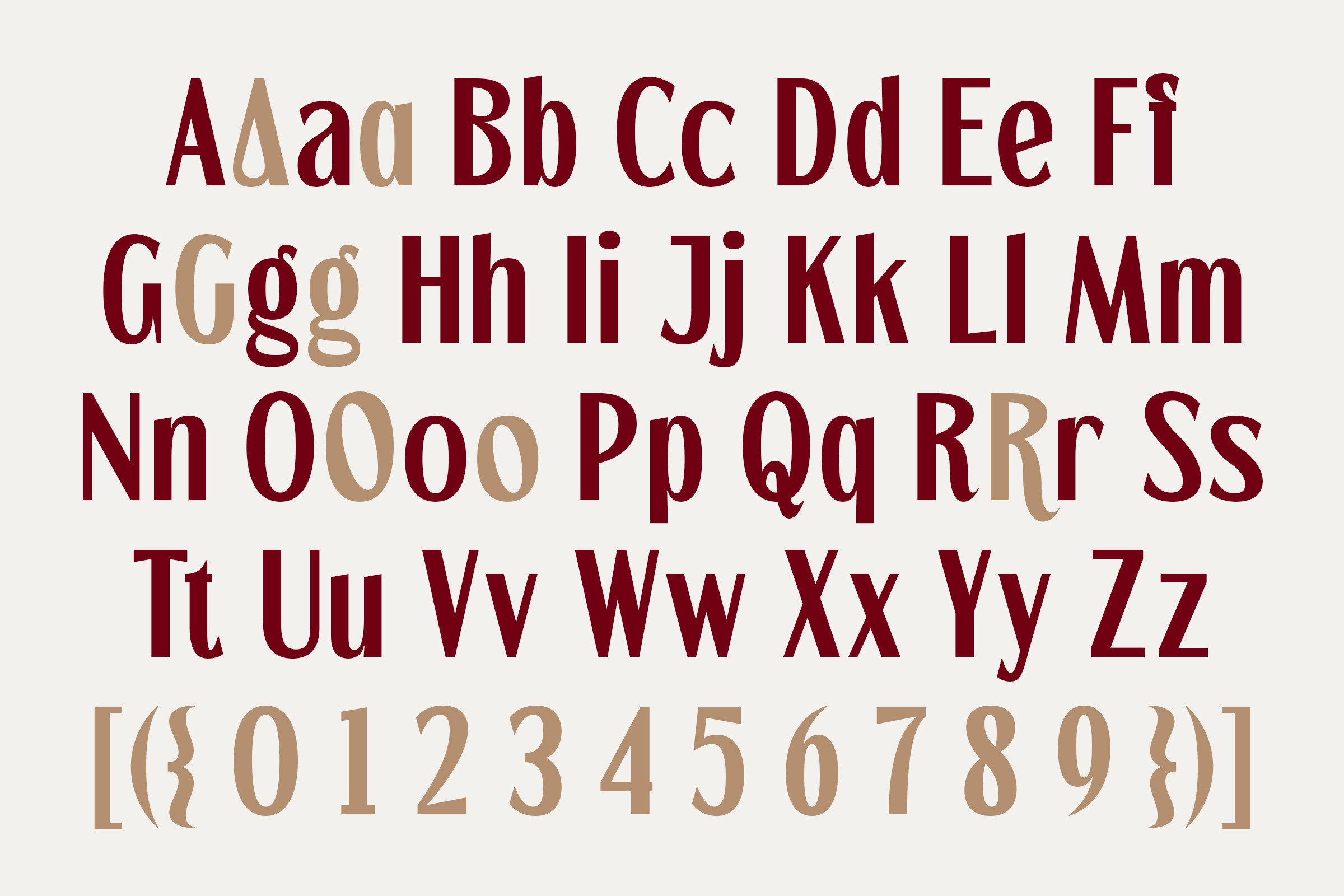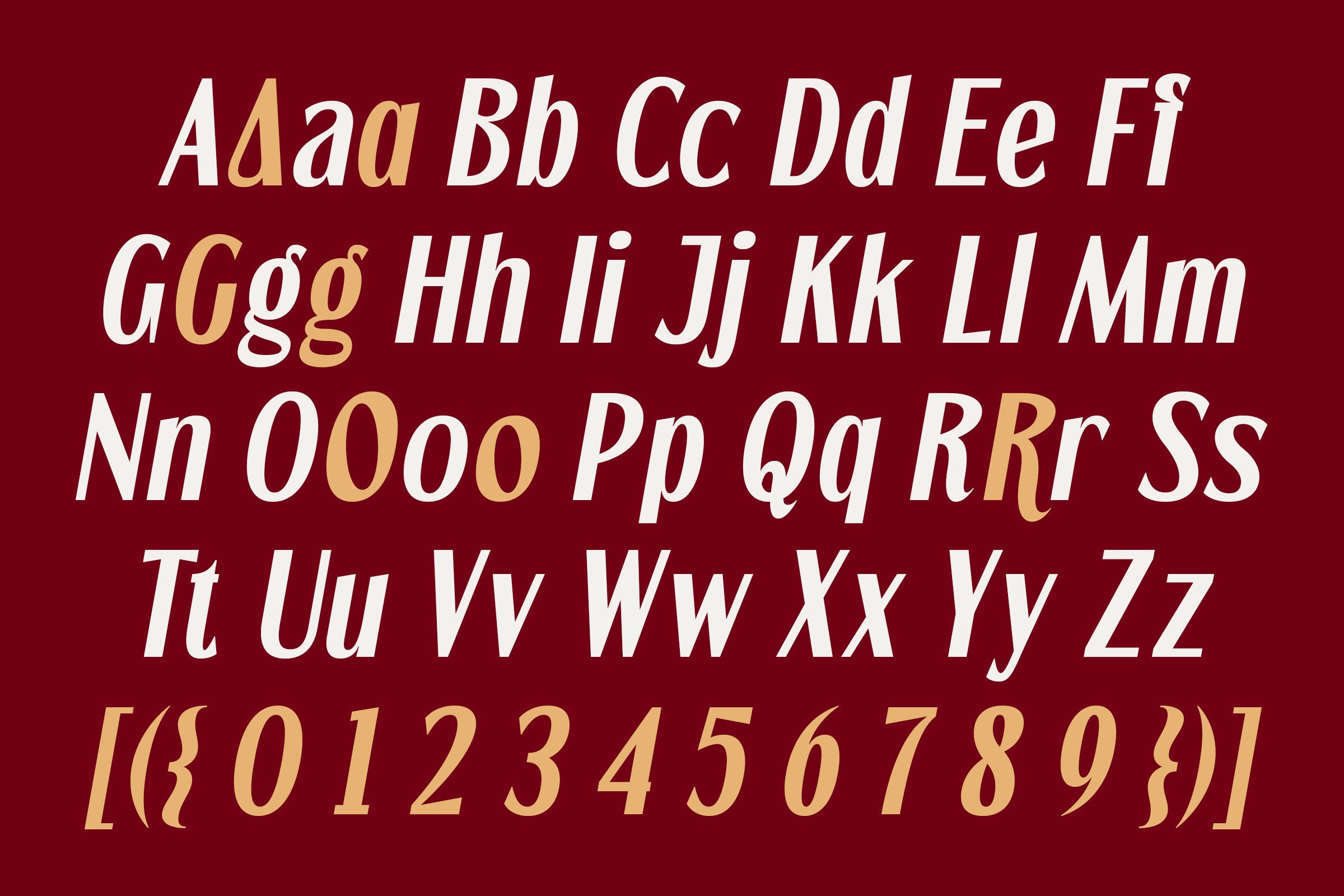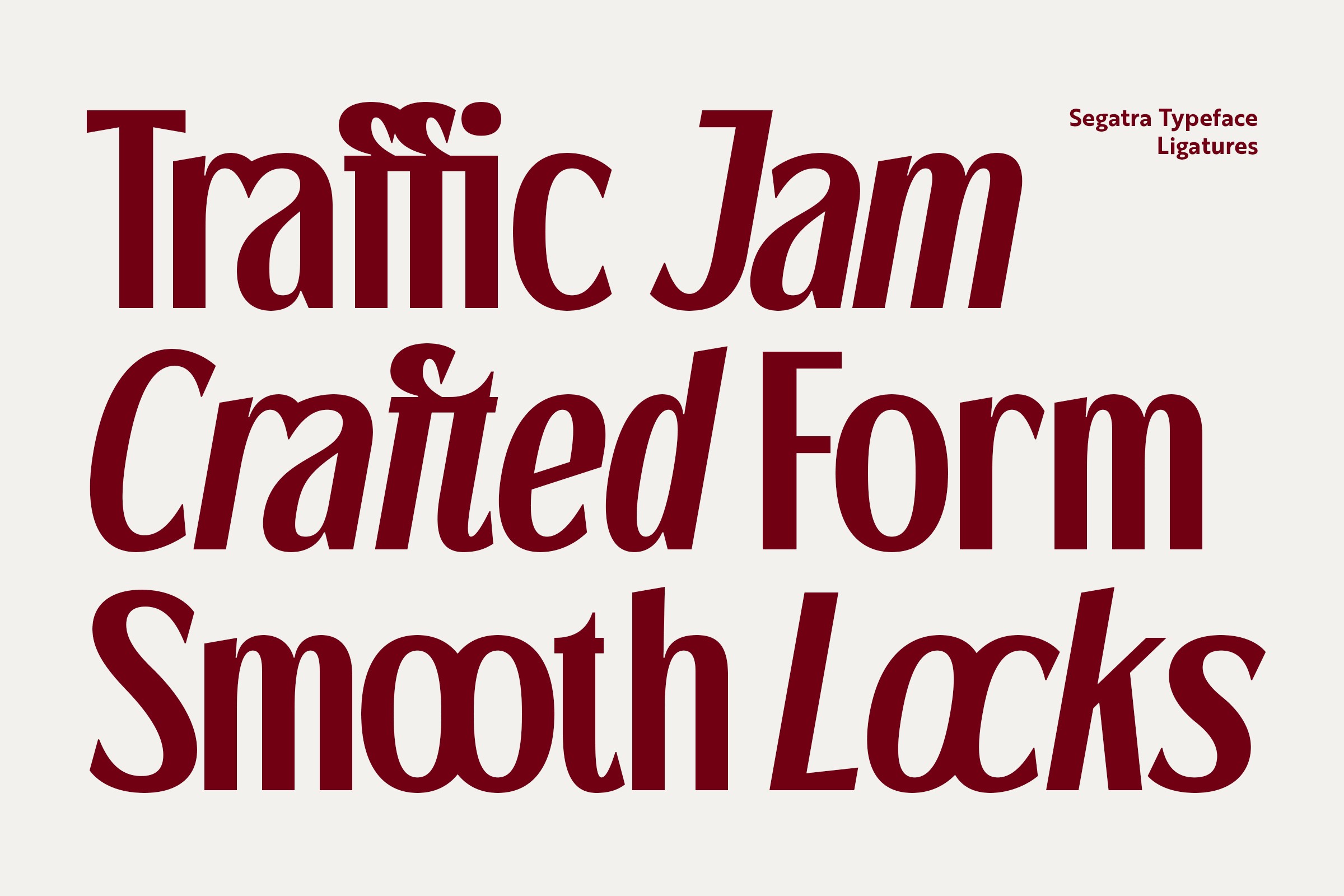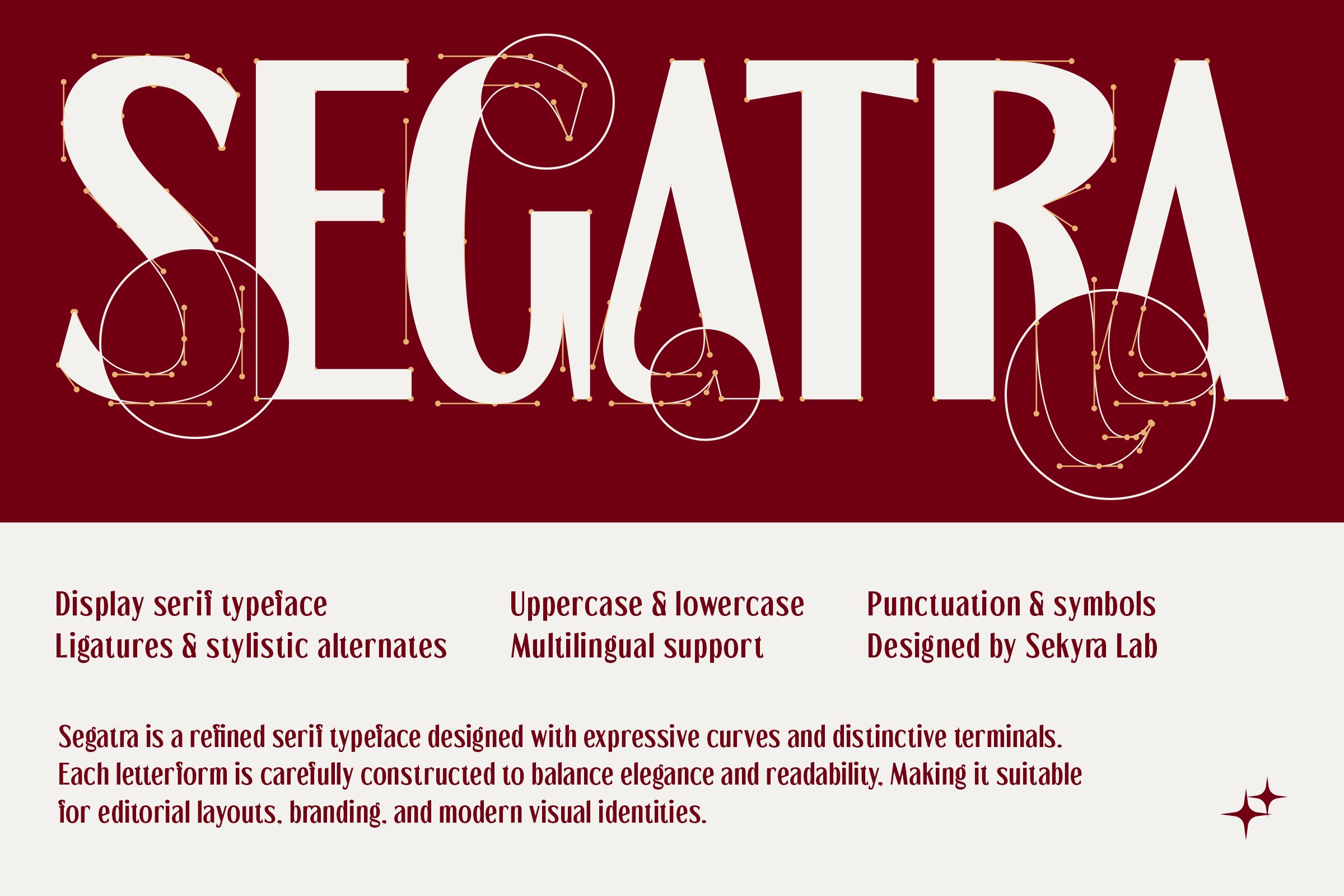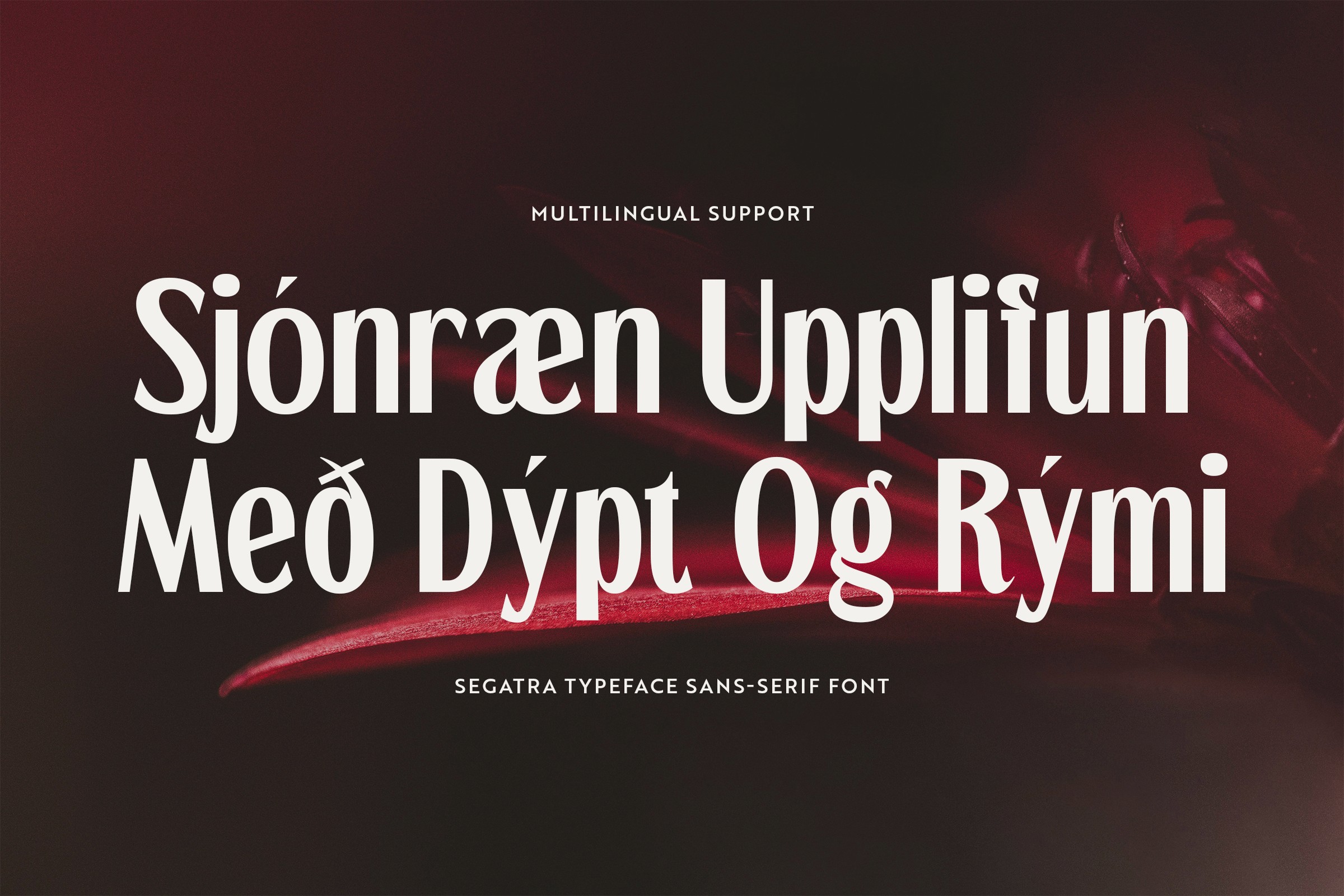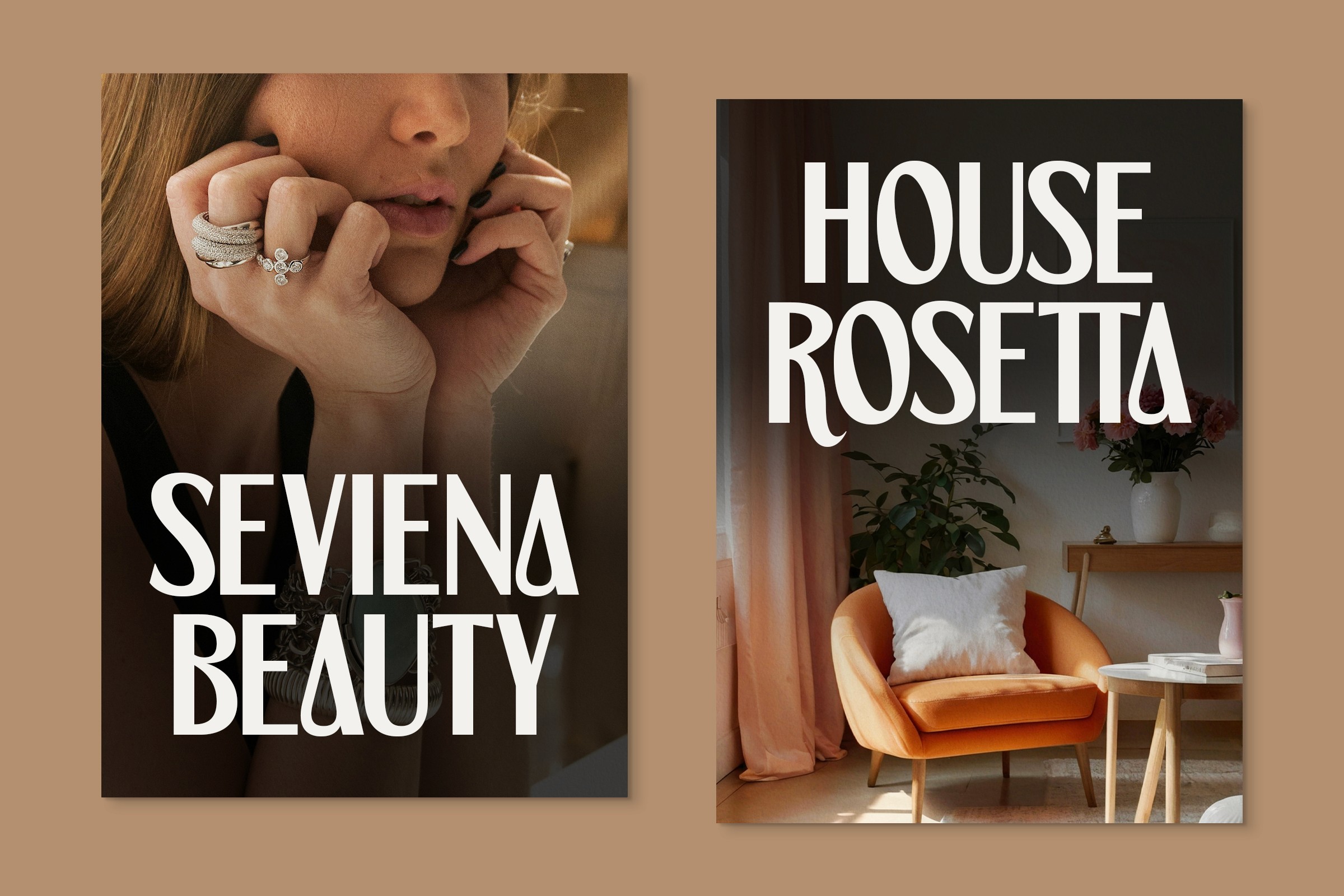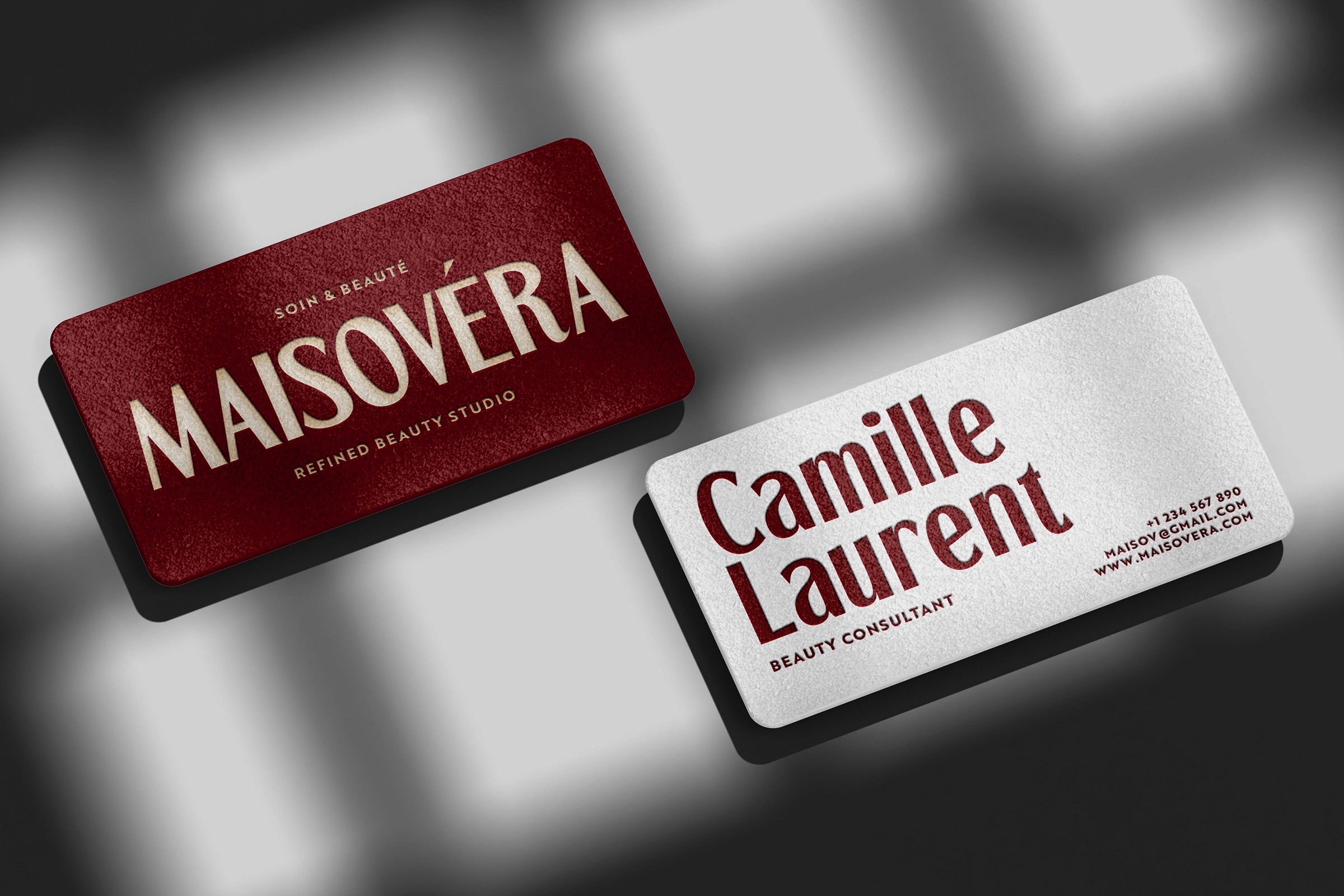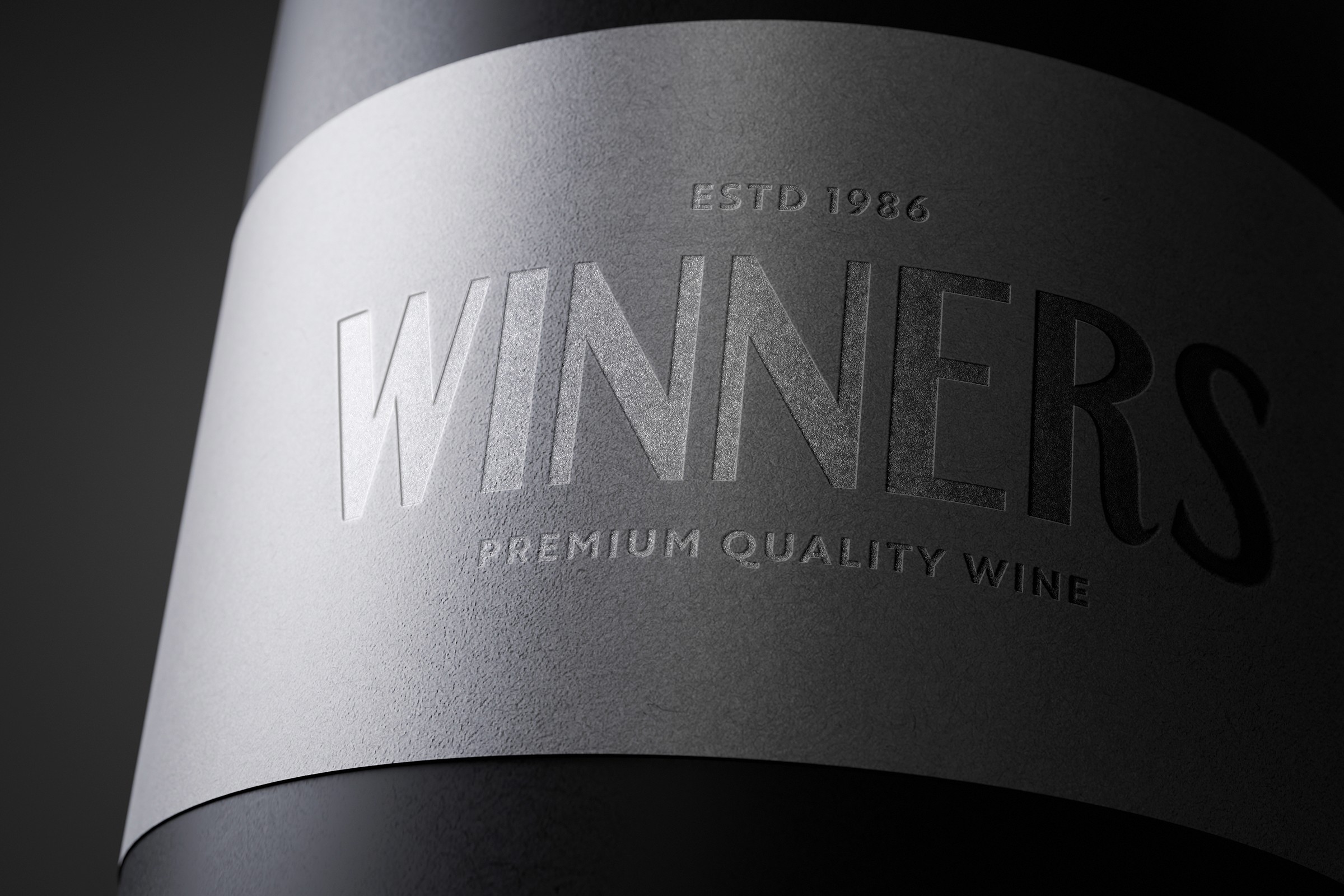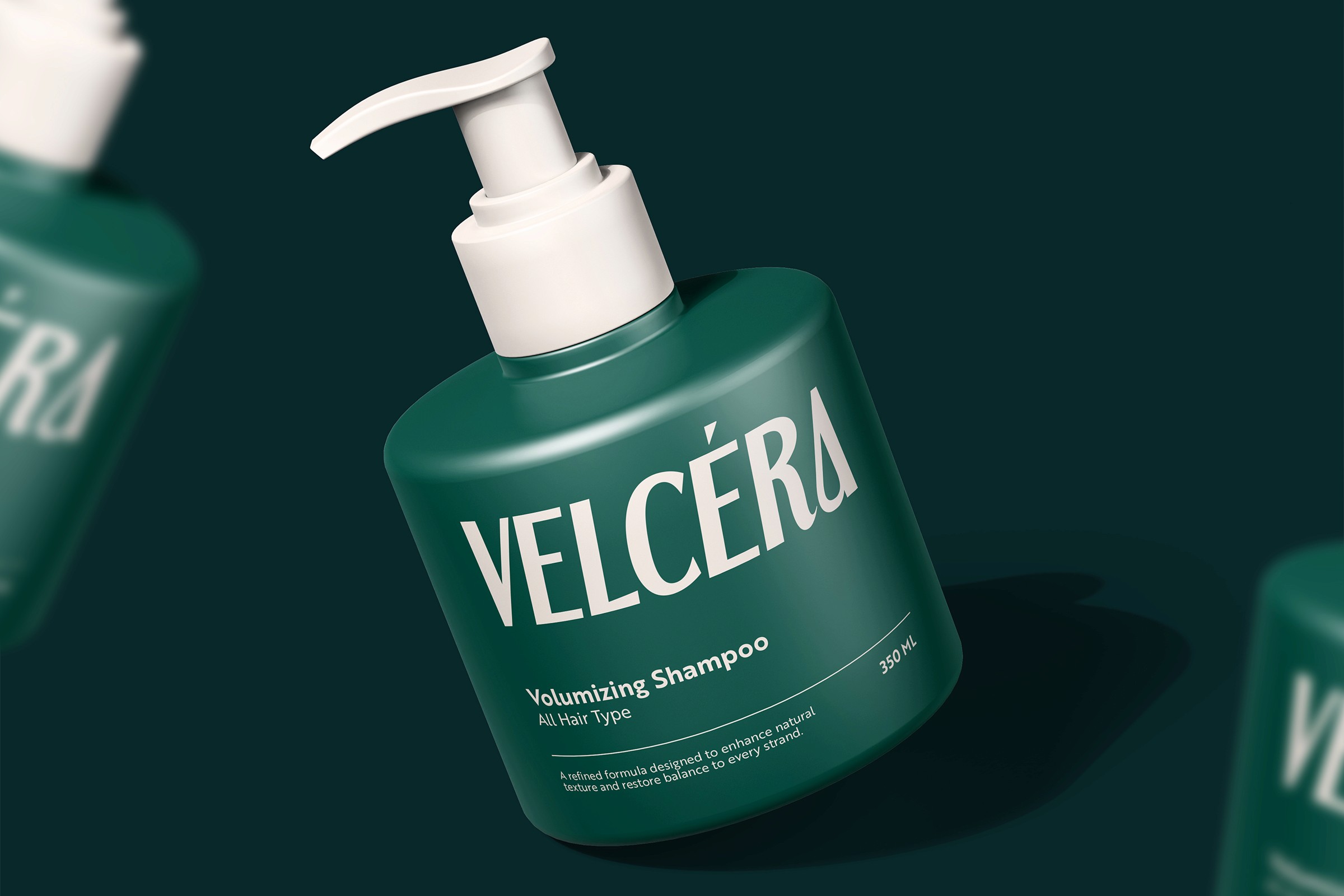
Segatra Font
Elegant Display
2 Styles
Segatra is a refined display serif that blends expressive curves with contemporary elegance. Designed with distinctive terminals and graceful proportions, it delivers a sophisticated presence for editorial layouts, luxury branding, and modern visual identities.
Elegant display serif with expressive contrast
Distinctive ligatures and stylistic alternates
Sculpted curves and refined terminals
Balanced letterforms for readability and style
Suitable for both modern and classic compositions
Multilingual support
Editorial design
Luxury branding
Beauty & fashion campaigns
High-end packaging
Creative direction visuals
Regular
Slanted